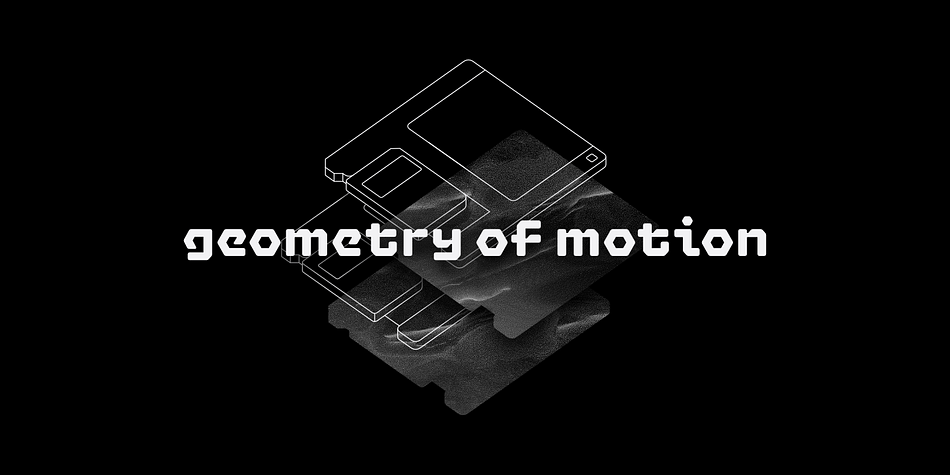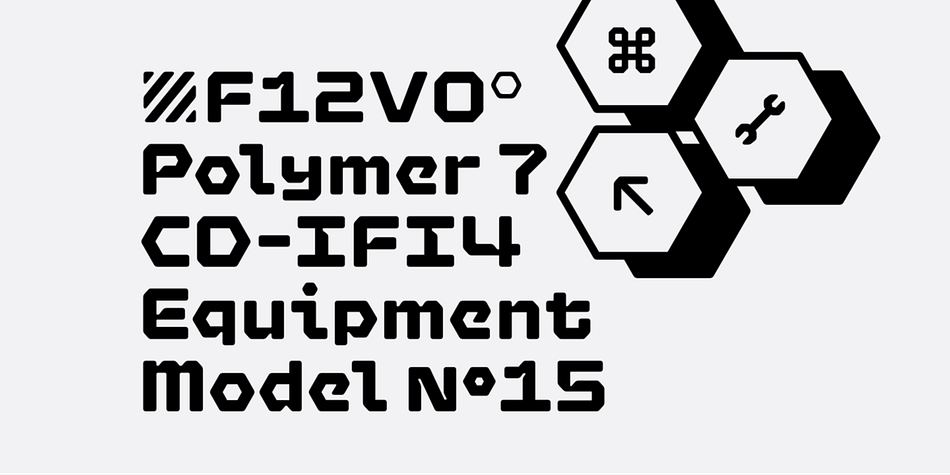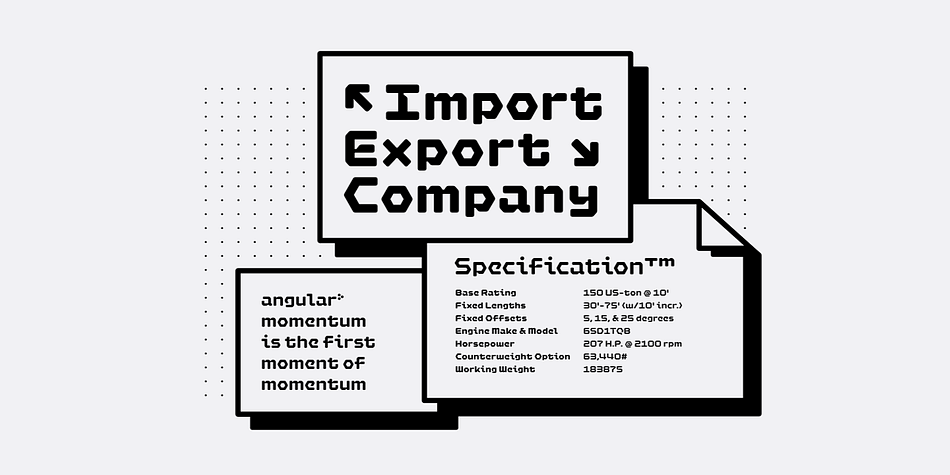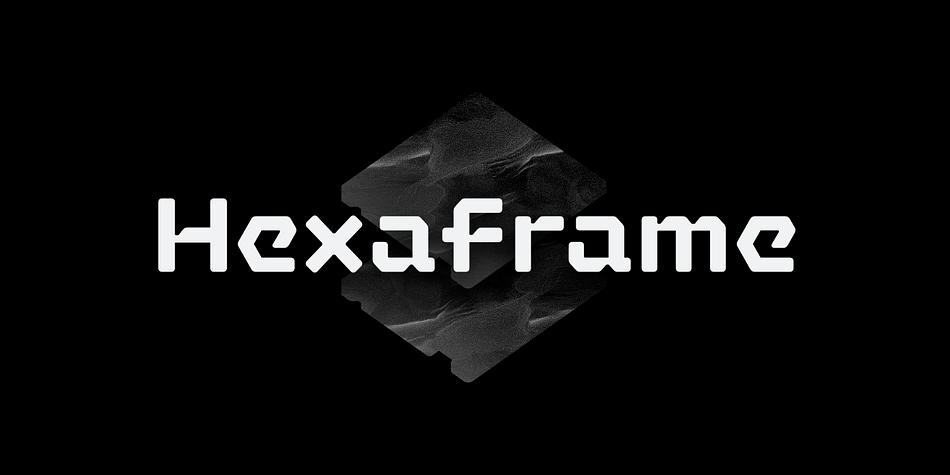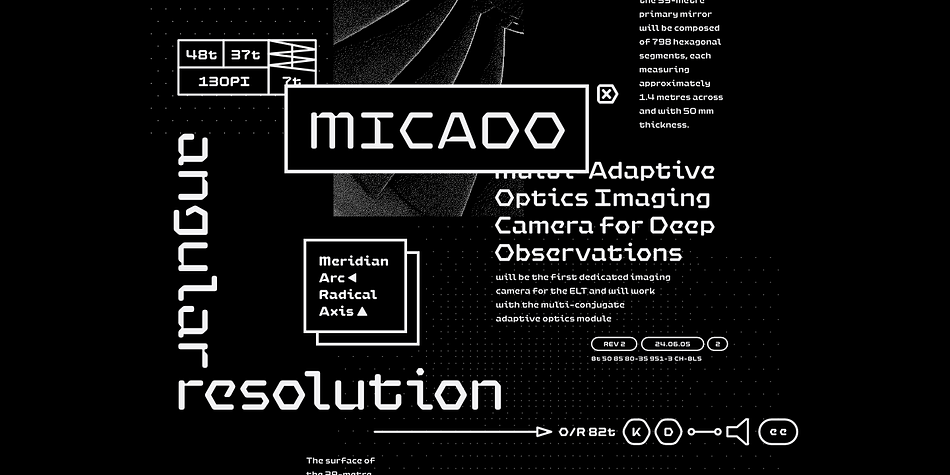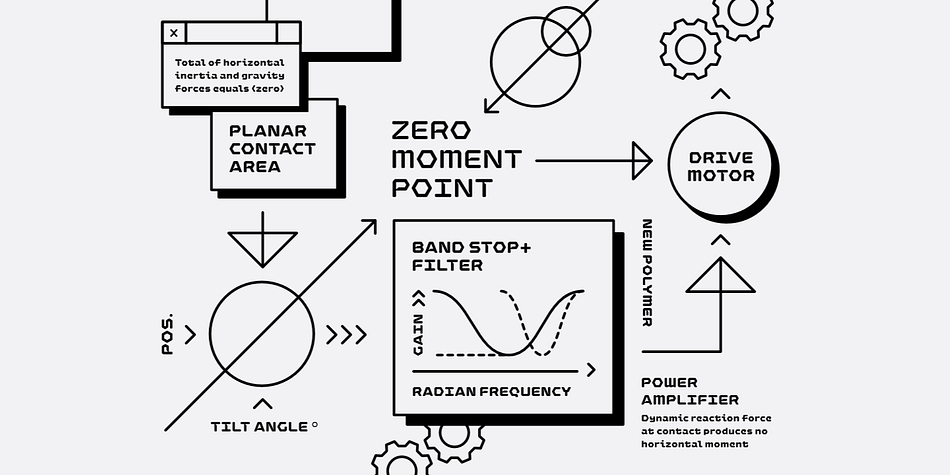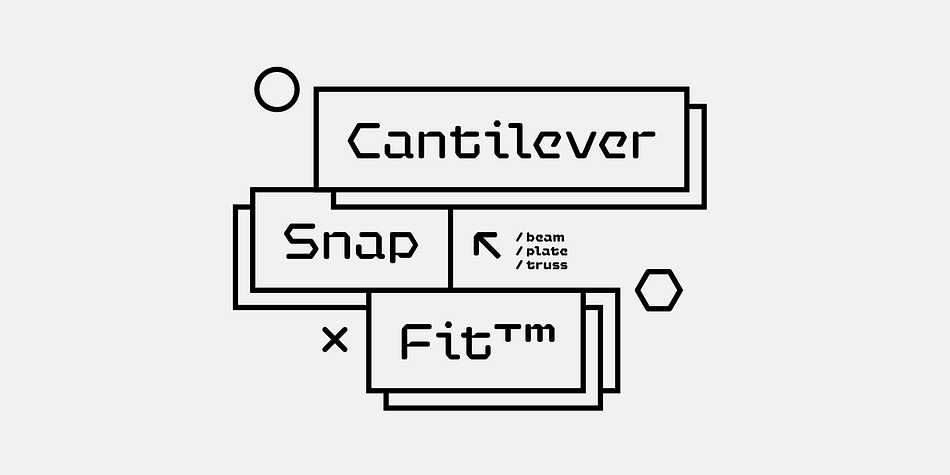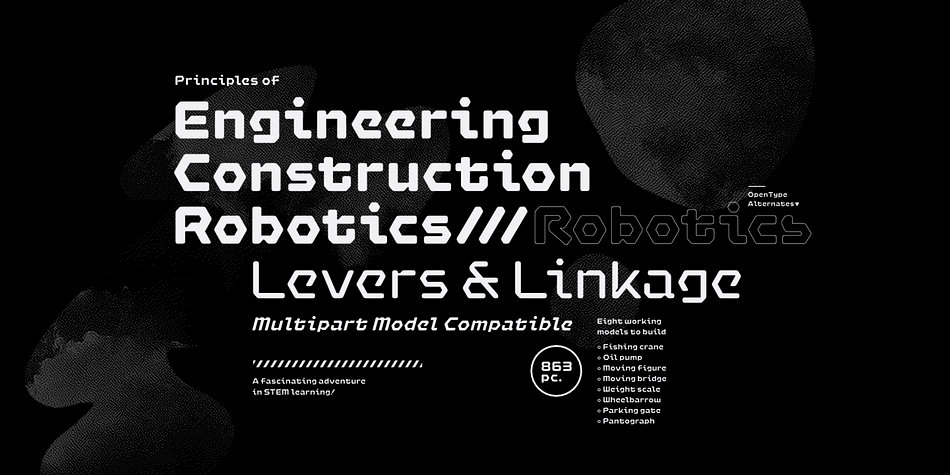
Designed by Connary Fagen, Hexaframe CF is a display font family. This typeface has fourteen styles and was published by Connary Fagen Type Design.
Hexaframe CF evokes the awe and potential of of heavy machinery and robotics. Clad in tough polygons and rounded edges, Hexaframe is a perfect typeface for corporate identity, STEM toys, and user interface design.